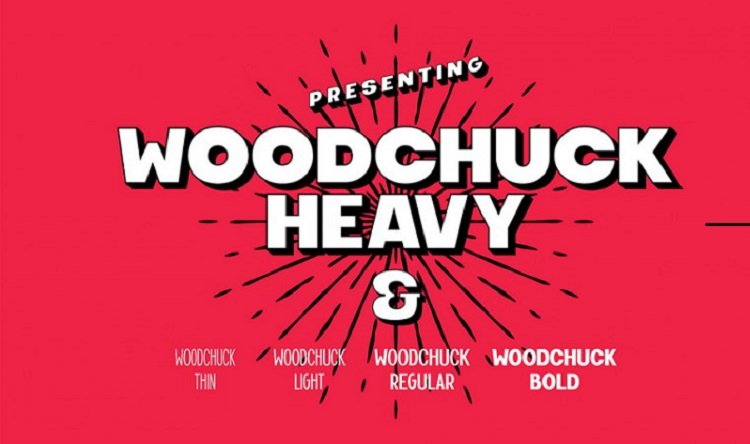
Woodchuck Free Font
Woodchuck Free Font is a free modern, not-so-serious sans serif type family. It has uppercase and lowercase and over 100 different characters and glyphs, supporting almost all latin languages. This is my first type design project and it’s been a lot of fun learning Glyphs and designing my first font. I hope you have as much fun using it as I did designing it!